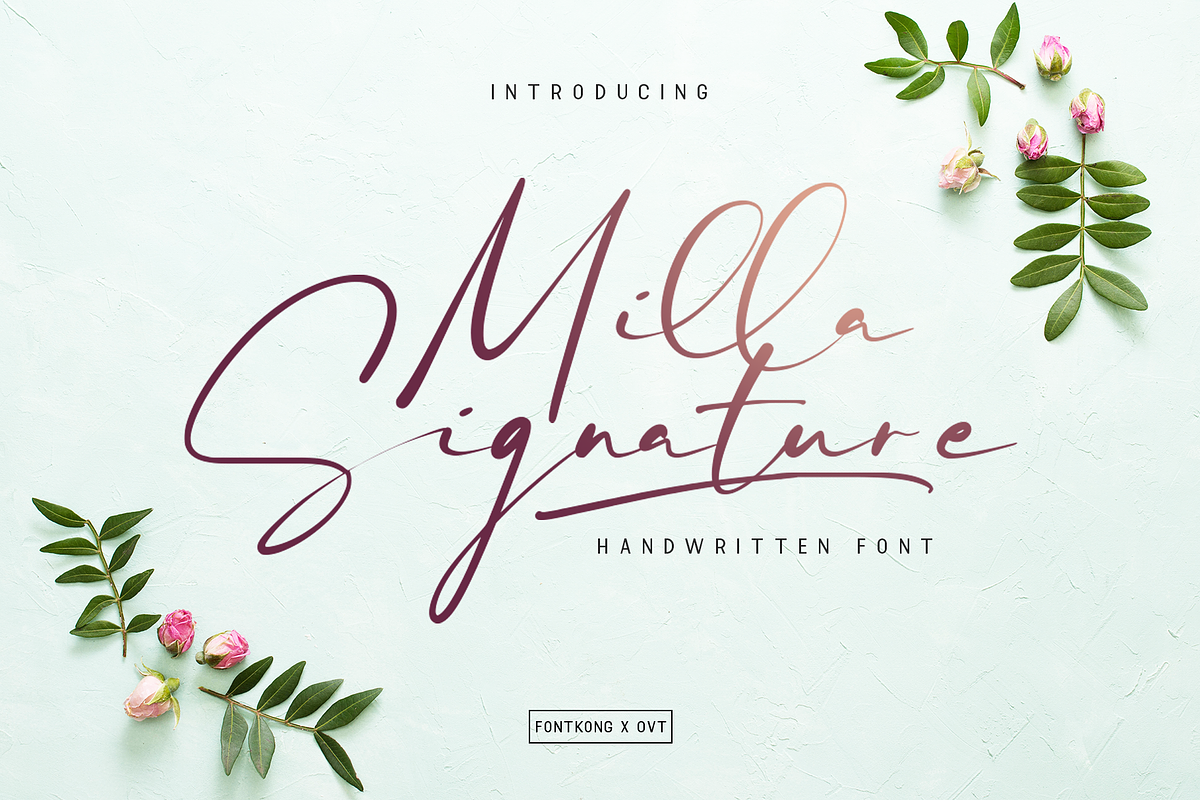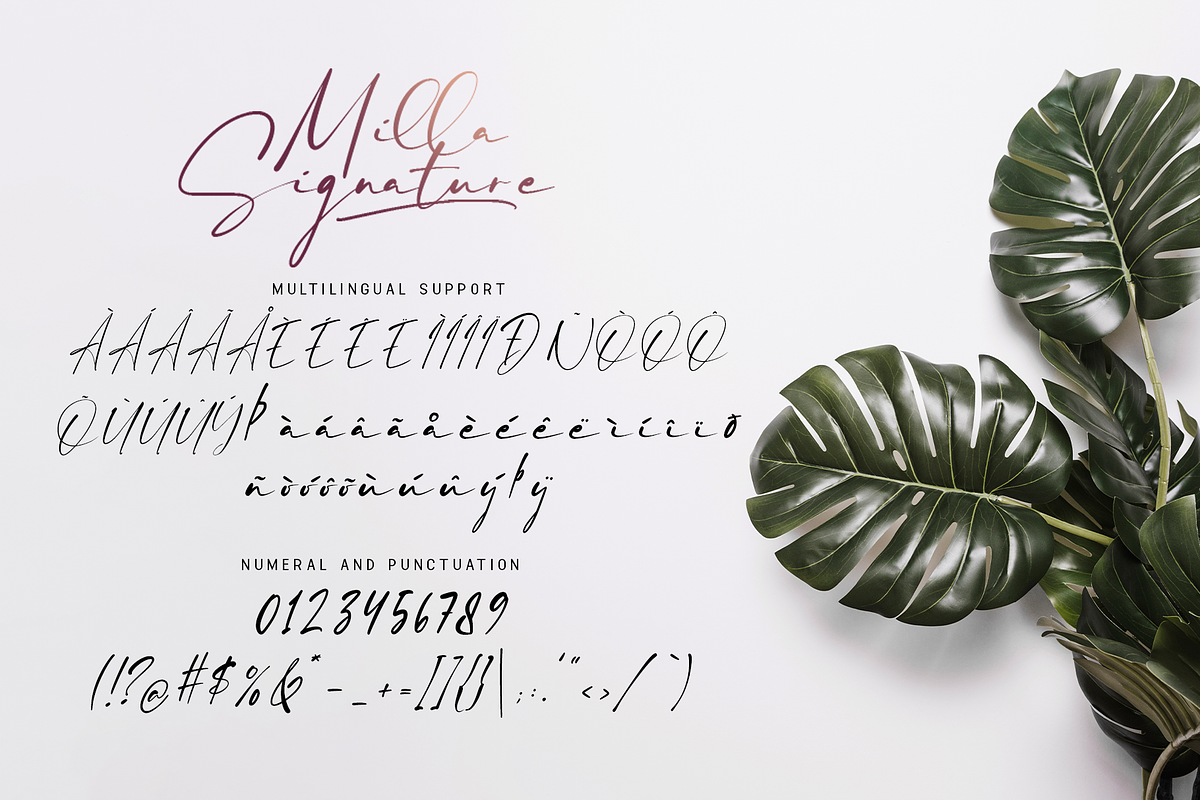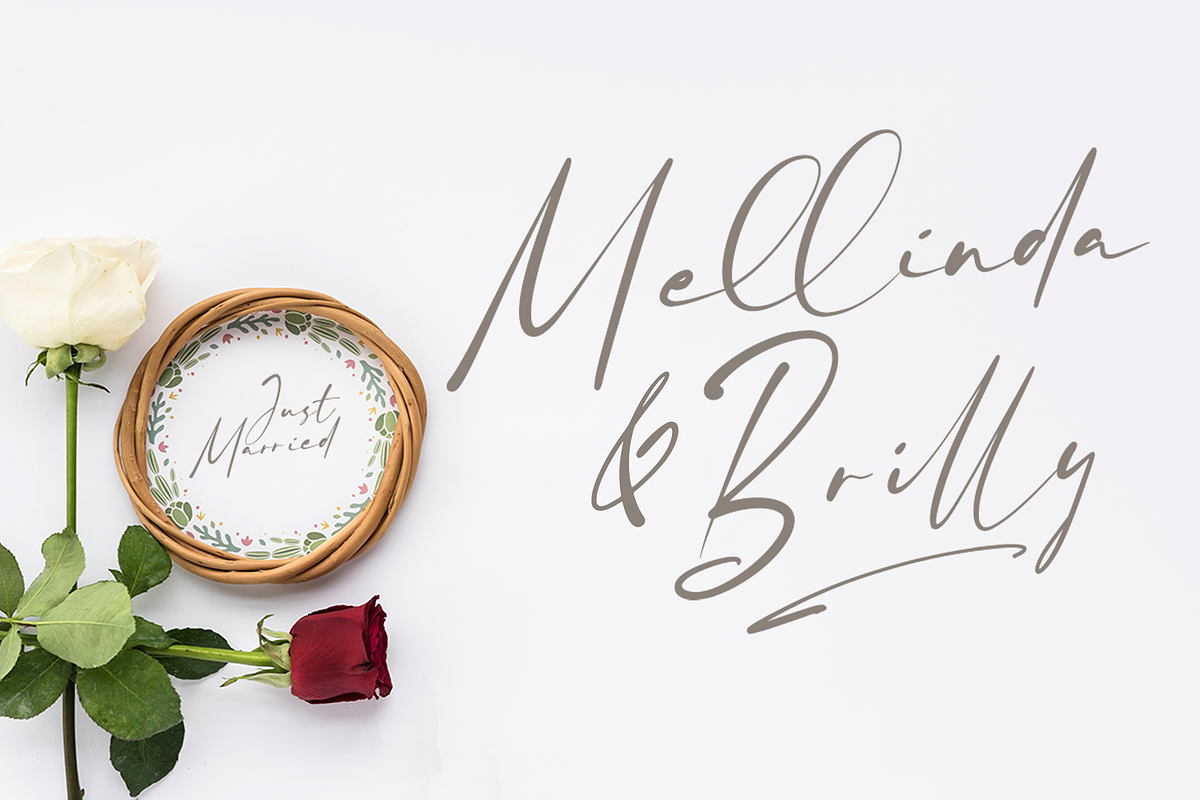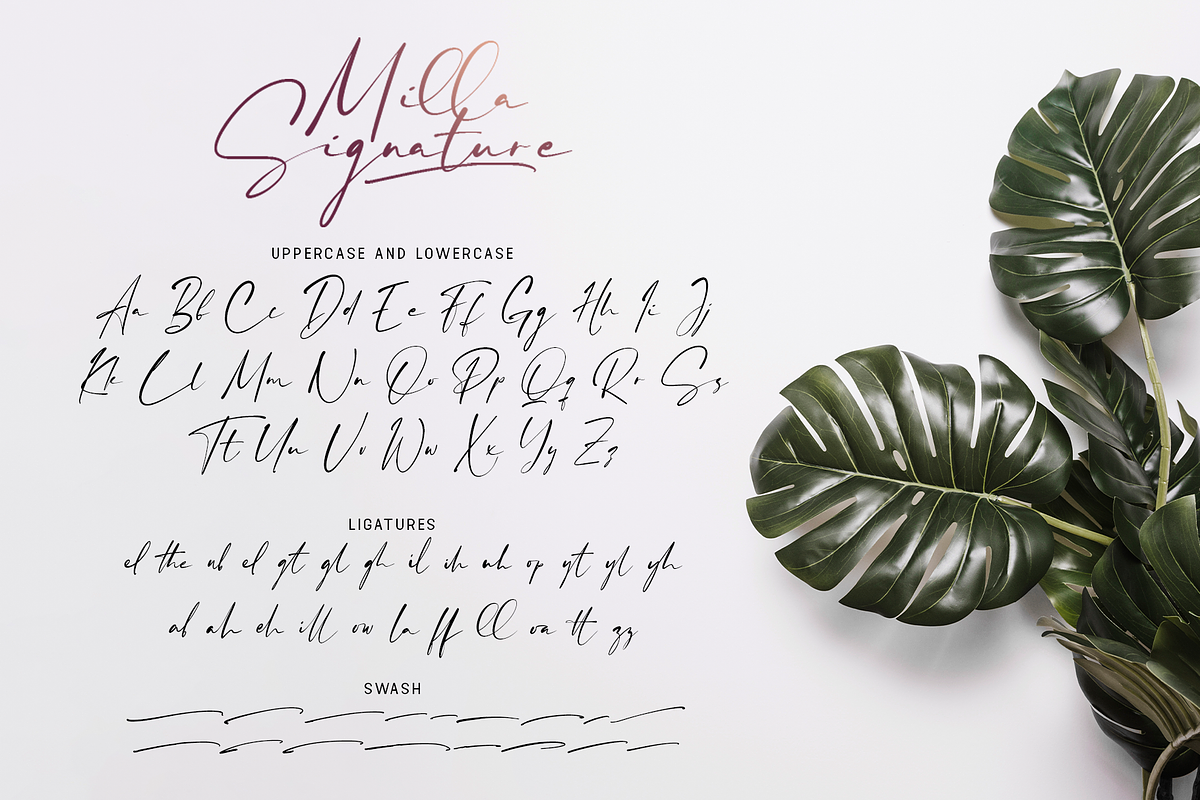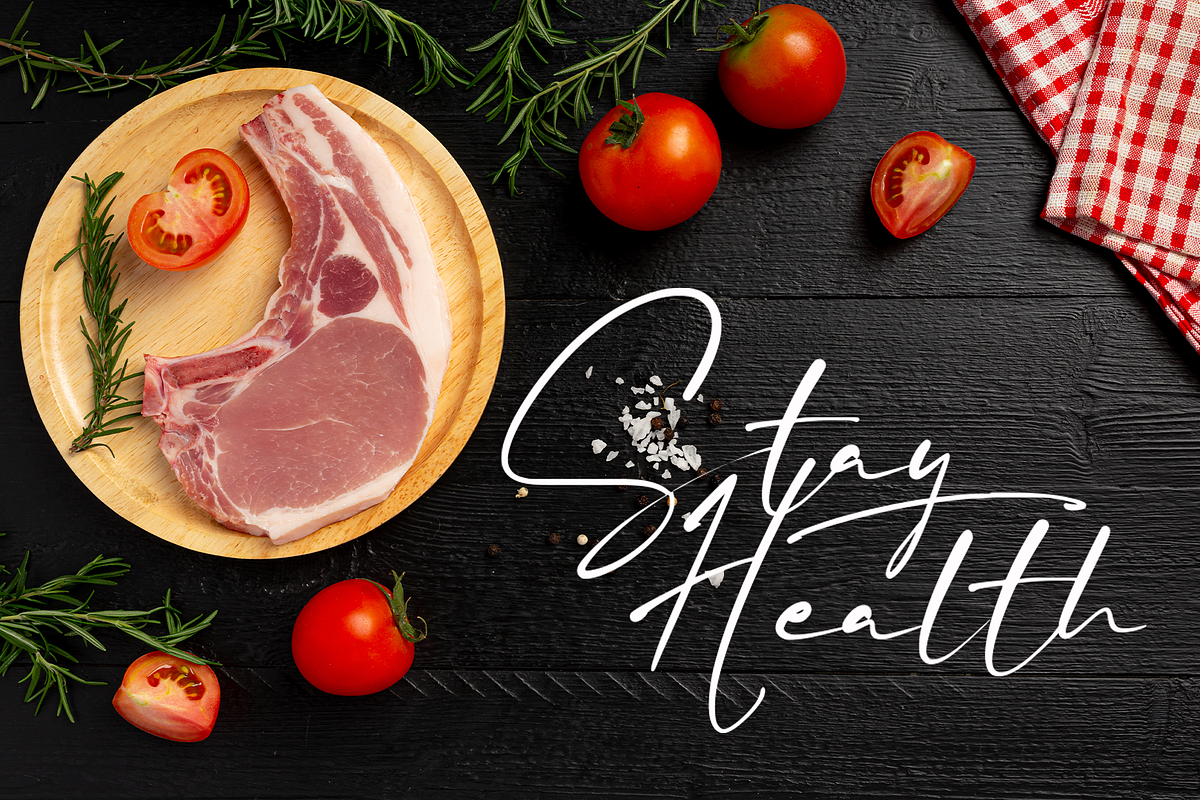
Milla Signature - A Handwritten Font
Milla Signature is a delicate and stylish handwritten font designed to bring a touch of personal elegance to your design projects. With its smooth lines and graceful curves, Milla Signature is perfect for elegant invitations, chic branding, personal stationery, and sophisticated logos. This font captures the essence of refined handwriting, ensuring your work stands out with a beautifully crafted and unique look.
Crafted with care, Milla Signature features natural and flowing letterforms that offer excellent readability and visual charm. Its handwritten style makes it ideal for both display and text purposes, providing a warm and intimate presence. The font’s versatility allows it to adapt seamlessly to various design contexts, from digital screens to printed materials, making it a valuable asset for any designer aiming to create elegant and personalized visuals.
Elevate your design projects with Milla Signature, a font that embodies the beauty of handwritten sophistication. Its unique style and adaptability make it an essential addition to any designer’s toolkit for crafting elegant and captivating designs. Enhance your work with Milla Signature and experience the charm of handwritten typography.